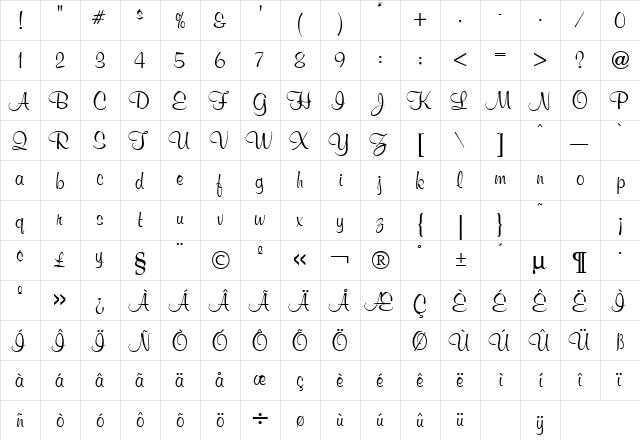
Murray Bold
Design Context for Murray Typeface
Murray is a composed and adaptable typeface that performs quietly and consistently across a wide range of design contexts. The heavy weight commands attention and anchors typographic hierarchies.